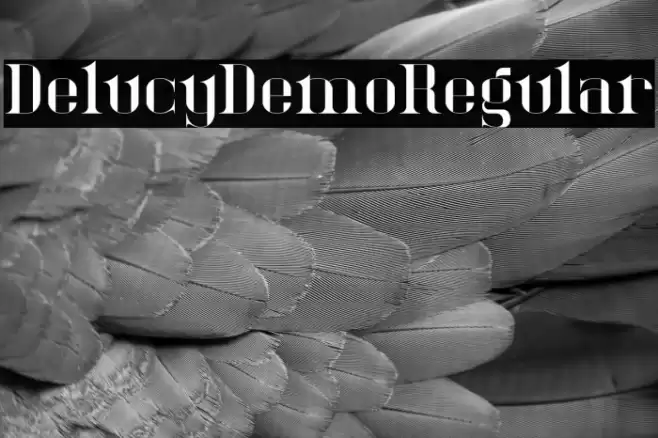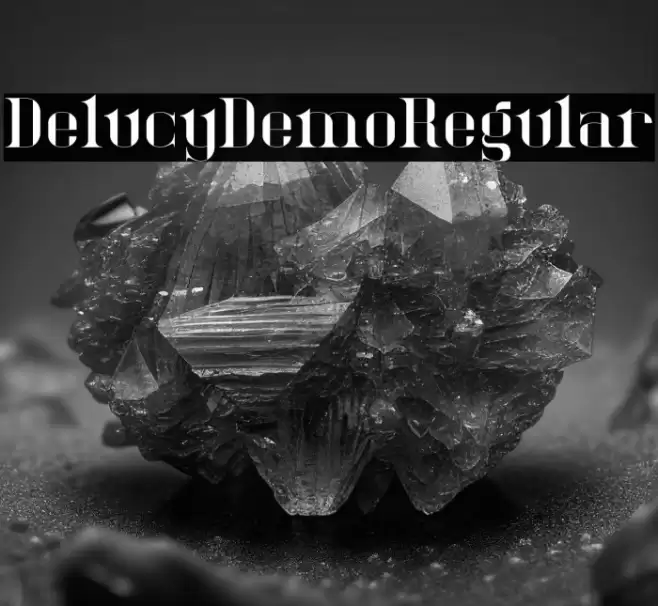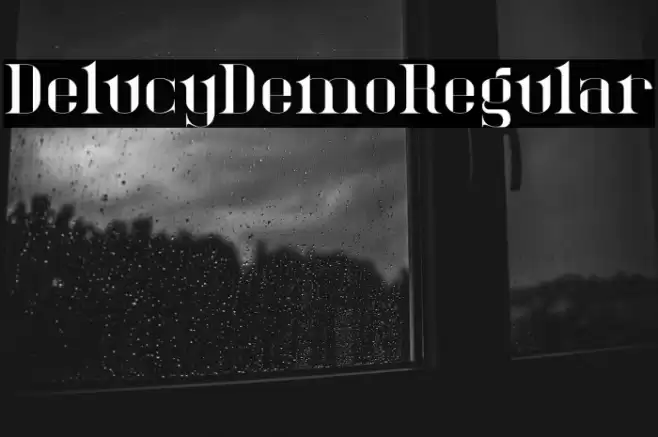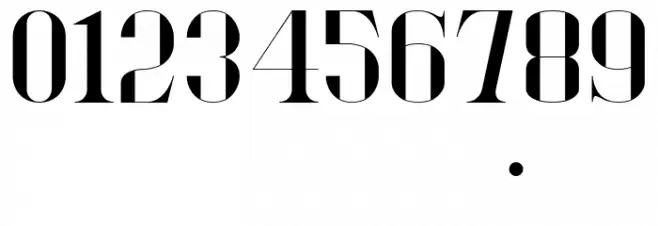
DelucyDemo-Regular Font
DelucyDemo-Regular Description
This font features a bold and striking design with high contrast between thick and thin strokes, giving it a dramatic and elegant appearance. The serifs are pronounced and sharp, adding a touch of sophistication and formality. The uppercase letters are tall and commanding, while the lowercase letters maintain a consistent style with a slightly more playful touch. The numerals are distinct and maintain the same high contrast, ensuring readability. This font is ideal for making a statement in any design project, combining classic elegance with modern flair.
A bold, high-contrast serif font with sharp serifs and elegant style from Regular fonts.